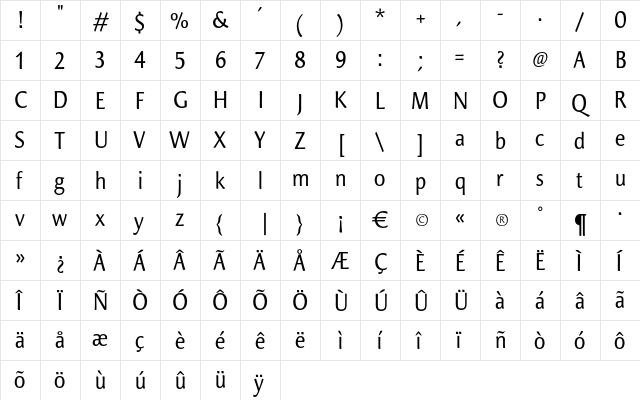
CarrefourCond Medium
Design Context for CarrefourCond Typeface
CarrefourCond offers clean, dependable letterforms without strong stylistic allegiance, making it a practical choice for designers who need flexibility. Its narrow stance lets it pack a punch even in space-constrained designs.
Pro Tip: Use CarrefourCond in both headline and body roles to test its range before committing to a single application.